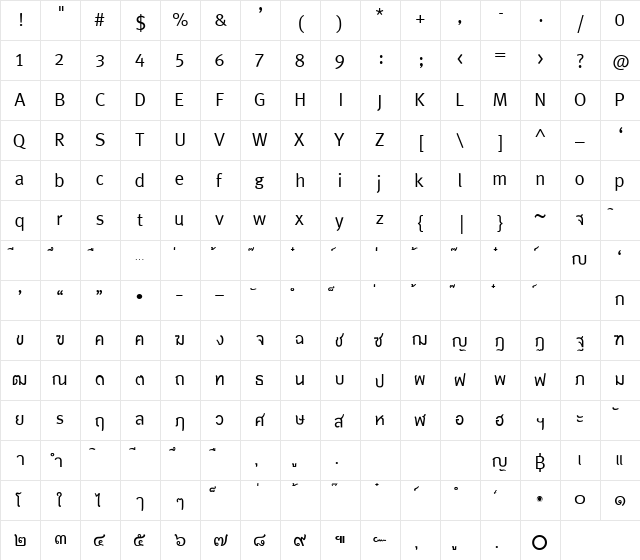
SP ThunderFox Regular
| Foundry | Sampan Sittiwantana |
Design Context for SP ThunderFox Typeface
SP ThunderFox takes a measured approach to typography — its balanced proportions and neutral character make it a reliable workhorse for both digital and print work.